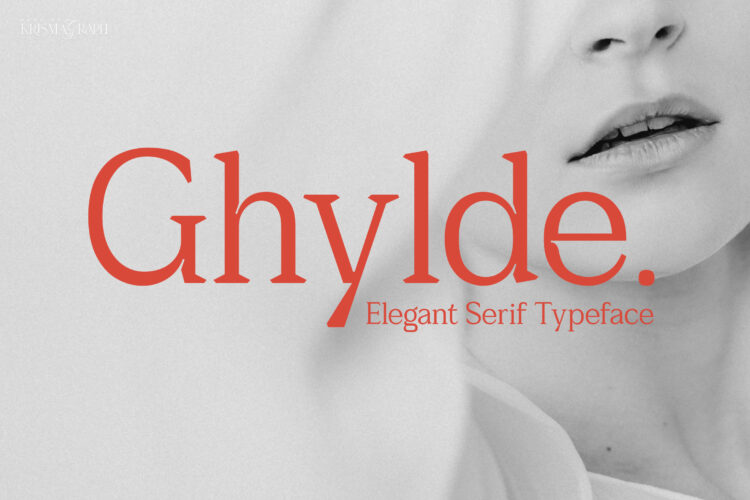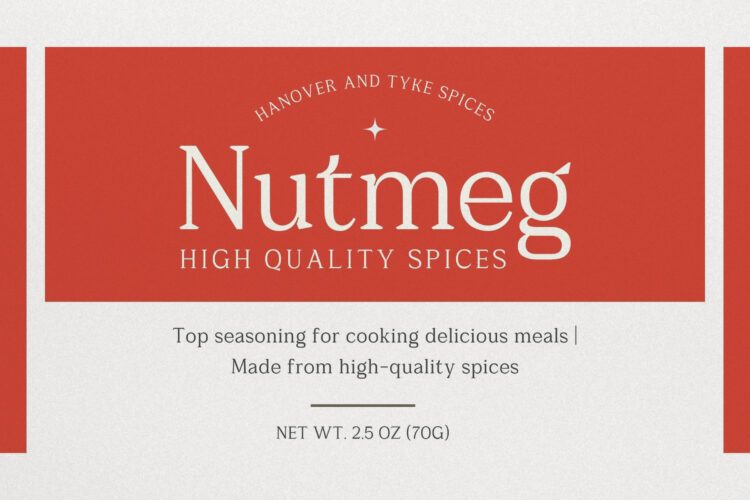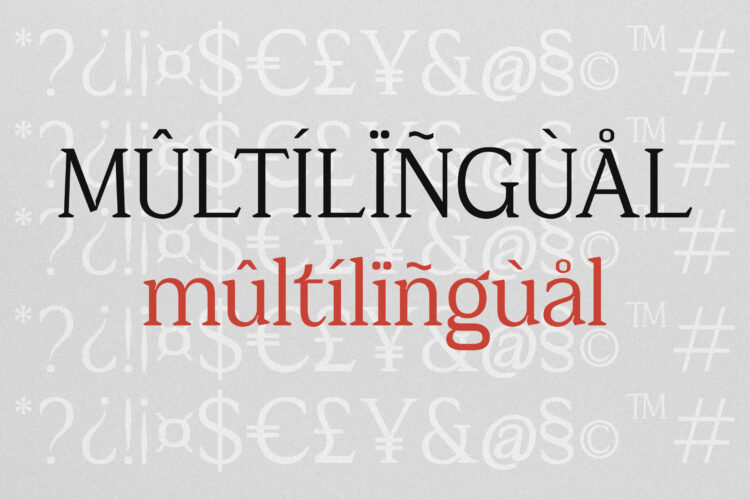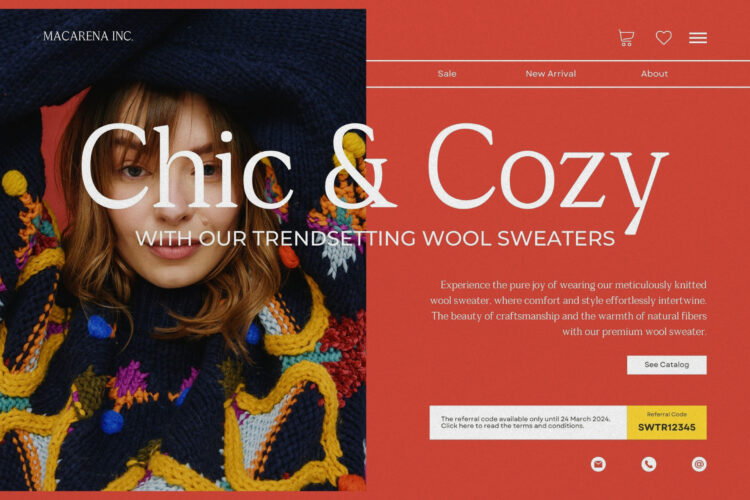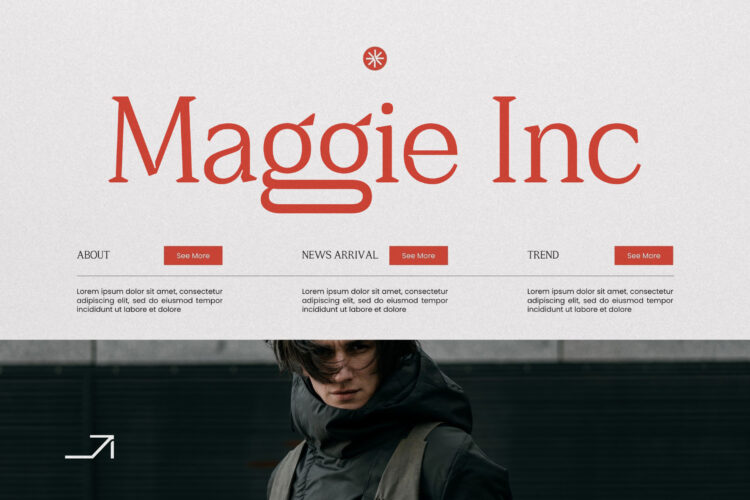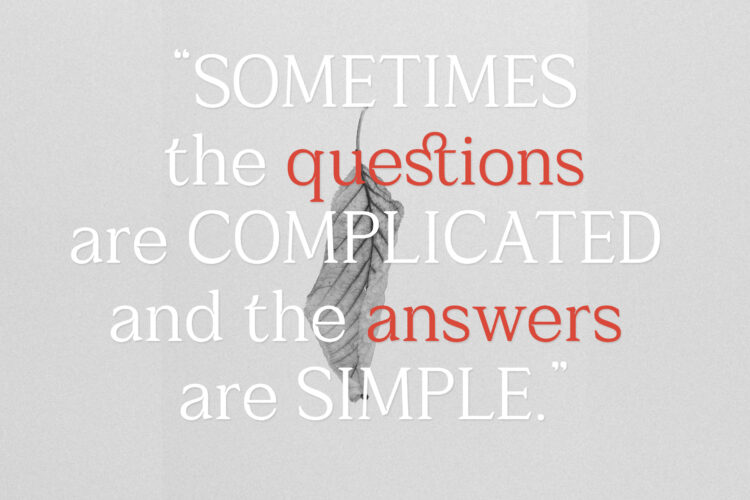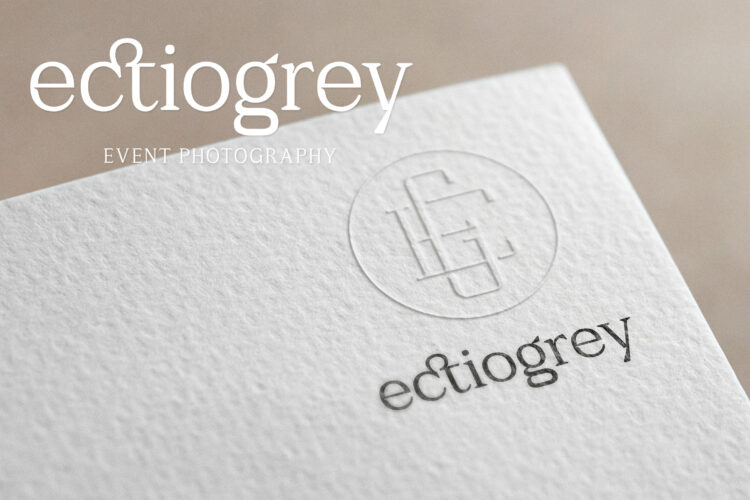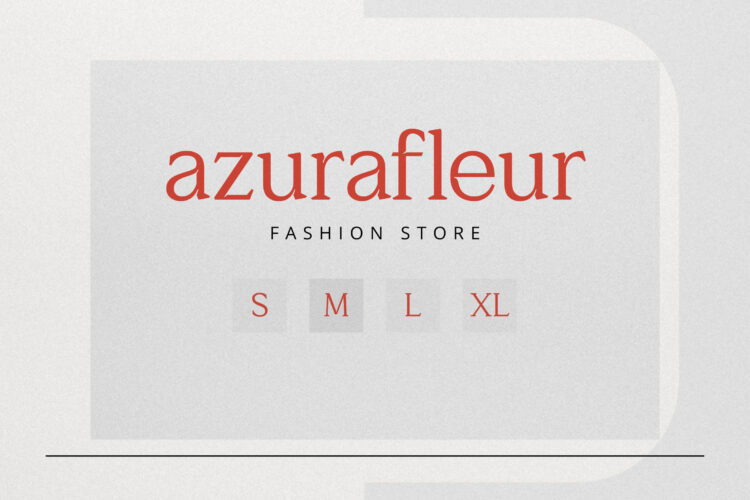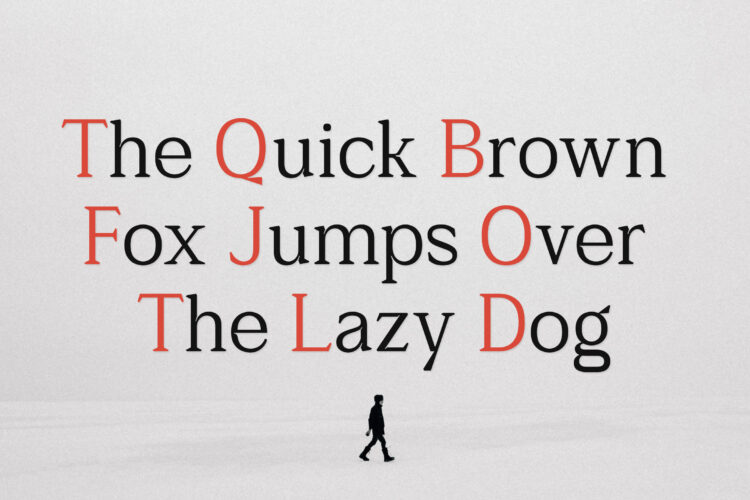
Ghylde is an elegant & modern Serif Display typeface that stands out from the crowd. Ghylde will be best suited for creating logotypes, branding, headlines, corporate identities, and marketing materials for the web & as well as any minimal designs. Please take a look at the included demographics to get an idea about the capability of this typeface when used for branding and marketing material design.
– Numbers & punctuation
– Symbols
– Ligatures
– Accented characters
Ghylde | Elegant Serif